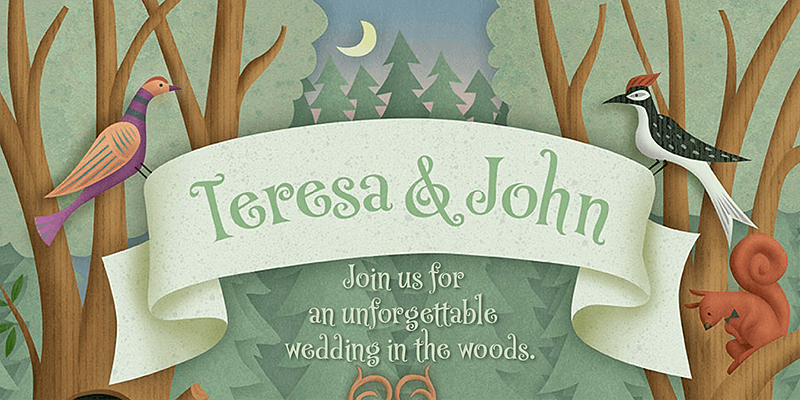
P22 Muschamp Pro specimen
P22 Muschamp Pro
P22 Muschamp Pro is a loopy, bouncy, free-form alphabet adaptable for many uses. Carefree, playful, rhythmic and versatile, this font evokes album jackets, children books, and cartoon titling.